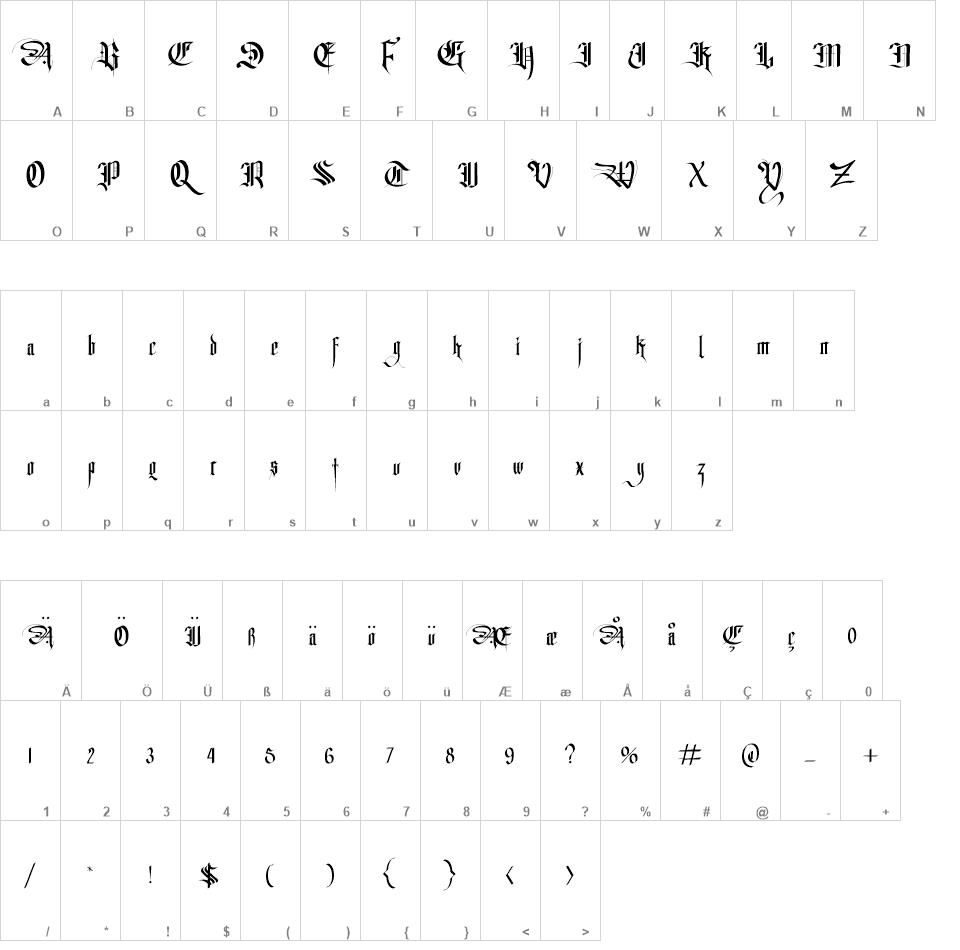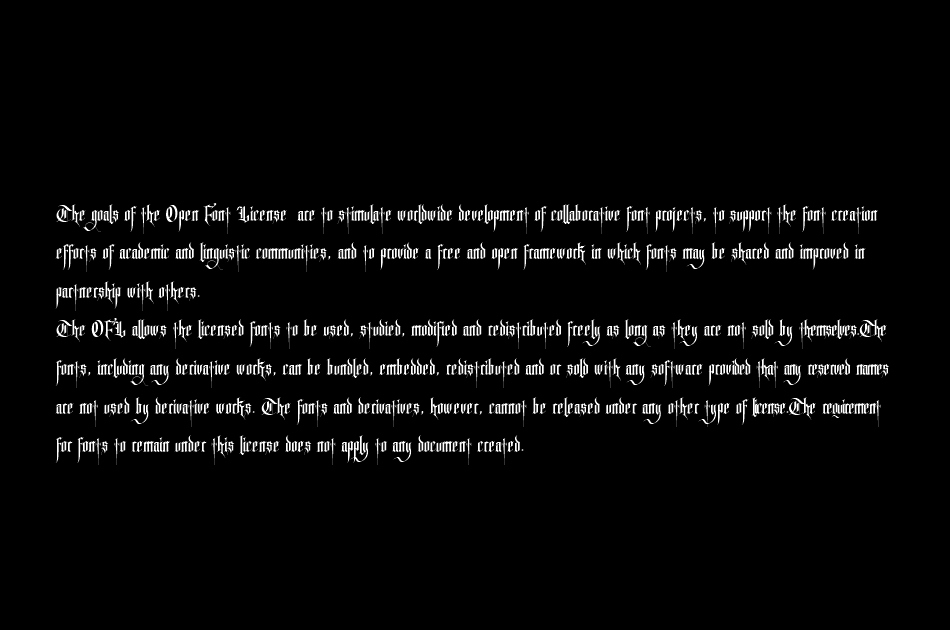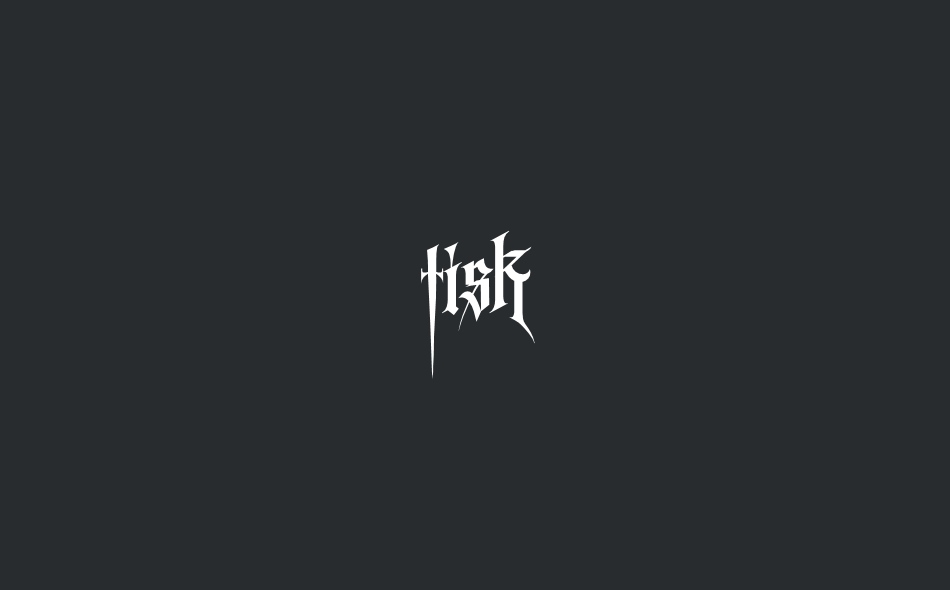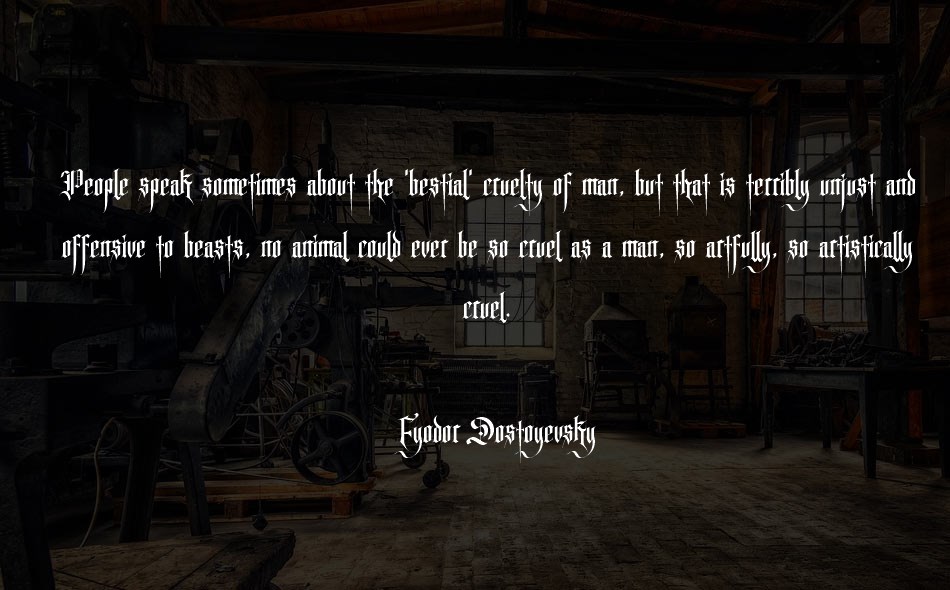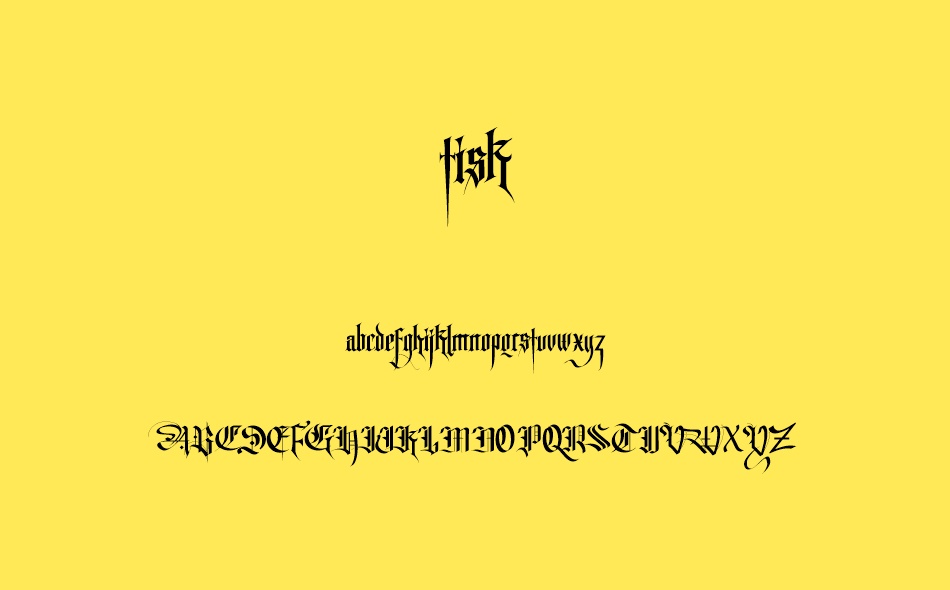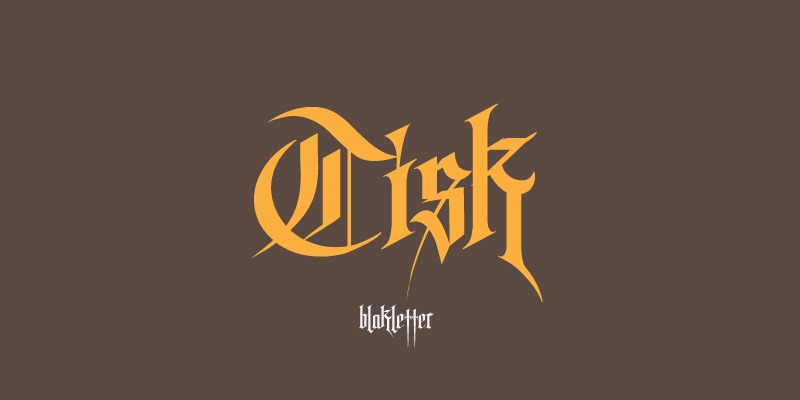
Tisk font
Tisk, is blackletter font suitable for cassic dark and grim design. for comercial purposes please go tohttps://www.creativefabrica.com/designer/ogit